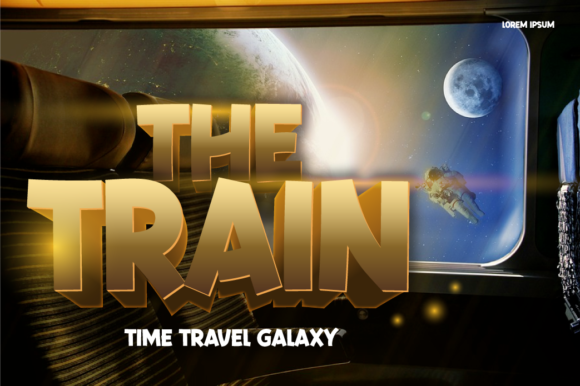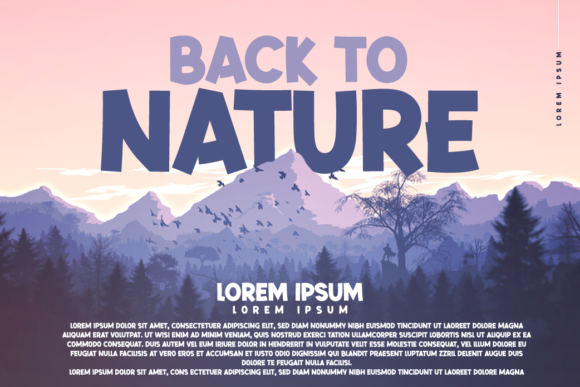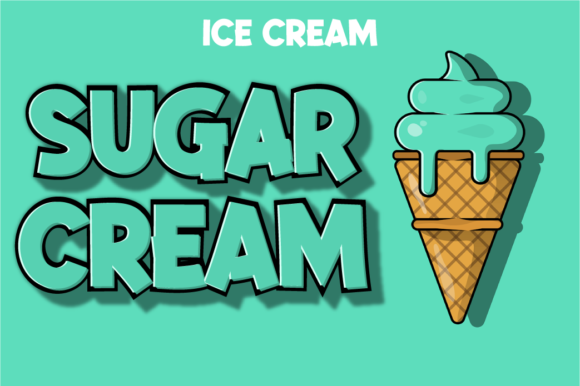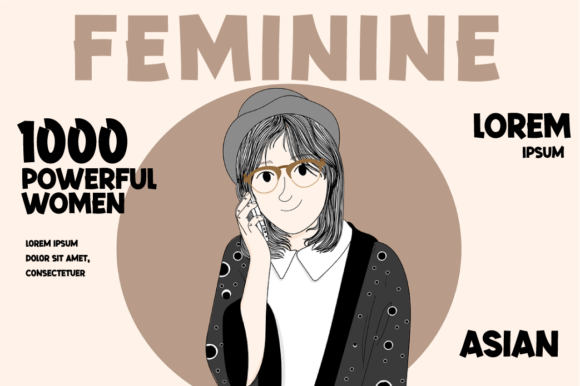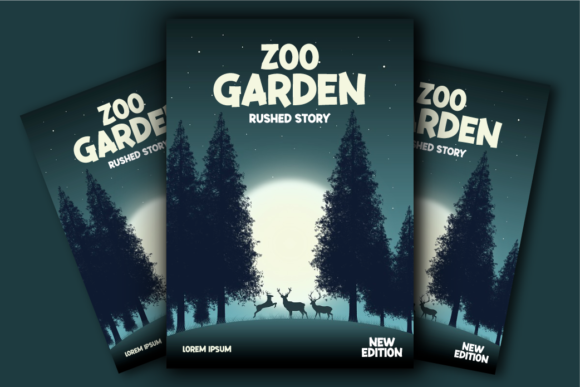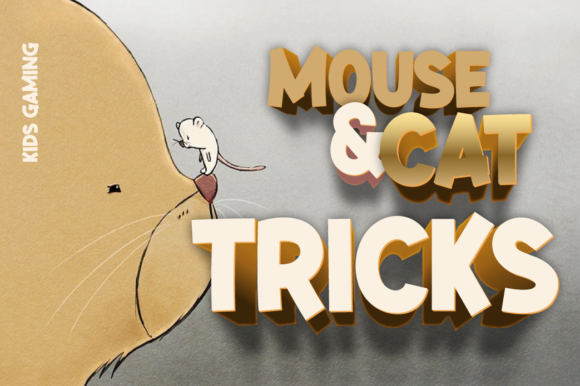
I still remember the frustration of working on a project, hours spent perfecting every detail, only to be stuck on one thing: the font. My client wanted something bold, something that would grab attention, but I just couldn’t find it. That was until I stumbled upon High Mount, a game-changing display font that has since become a staple in my design toolkit.
What is High Mount Font?
High Mount is a display font with sans serif elements that demands attention with its bold and strong characters. Its unique design makes it perfect for use in titles, headings, and anywhere you want to make a statement. As a designer, I can attest that finding a font that can elevate your design while also conveying the right message is a challenge. High Mount does just that.
My Honest Review
Here’s what I love about High Mount:
• Bold and strong characters: Perfect for making a statement
• Easy to read: Even at smaller sizes, High Mount remains clear and legible
• 🌈 Versatile: Works well with a variety of design styles and color schemes
And, like any font, it’s not without its quirks:
• 🤔 Limited use cases: High Mount is best used for titles and headings, not body text
• ⚠️ May not work well with certain design styles: Such as elegant or minimalist designs
The Designer Behind High Mount
The story behind High Mount is one of creativity and experimentation. While the actual designer may remain anonymous, it’s clear that they were driven by a passion for typography and a desire to create something unique. The result is a font that’s both bold and beautiful.
What is High Mount font best used for? High Mount is best used for titles, headings, and anywhere you want to make a statement.
Can I use High Mount for body text? No, High Mount is best used for titles and headings. It’s not suitable for body text due to its bold and condensed design.